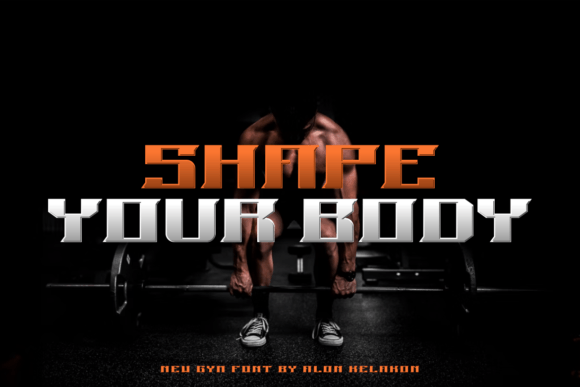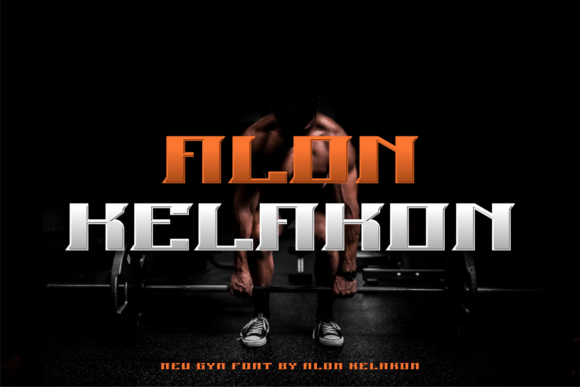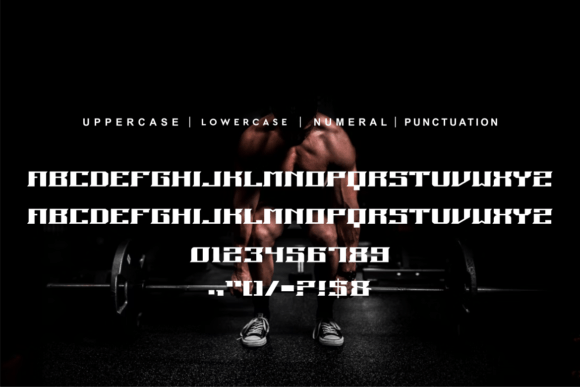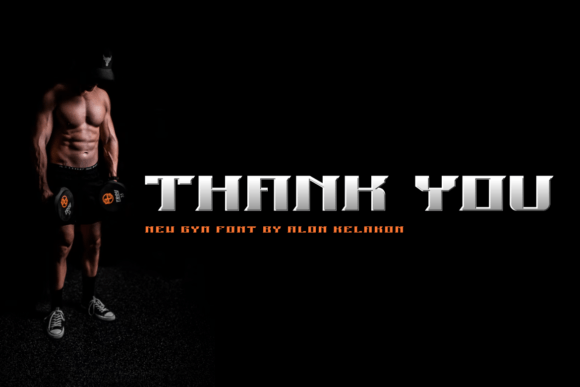
Enter the Gym Sports Font, a cool and modern display font designed to take your creative projects to the next level. This versatile font is perfect for anyone looking to add a touch of sophistication and style to their designs. With its clean lines and modern aesthetic, Gym Sports Font is a valuable addition to any designer’s toolkit.
Gym Sports Font Key Features
- Font Family: Gym Sports Font is a custom-designed sans-serif font.
- Character Count: The font includes a wide range of characters, including uppercase and lowercase letters, numbers, and punctuation marks.
- Unique Characteristics: The font features a bold and athletic design, making it perfect for sports-related applications, fitness studios, and gyms.
Gym Sports Font Review
- The font is highly customizable, allowing you to adjust the weight, size, and color to fit your design needs.
- The bold and condensed style makes it perfect for creating a dynamic and energetic feel, ideal for sports or fitness-related projects.
- The font is relatively easy to read, even at smaller sizes, which is a must for any font intended for digital use.
- The font may not be suitable for more formal or professional projects, as it can come across as too casual or playful.
- The limited number of styles and weights may limit your design options, especially when compared to more comprehensive font families.
- The font may not be optimized for certain languages or character sets, which could lead to display issues.
Gym Sports Font is a solid choice for projects that require a bold, energetic feel. While it may not be the most versatile font, it’s perfect for sports, fitness, or action-packed themes. With some careful planning and design, you can create an amazing visual experience with this font.
Gym Sports Font: A Practical Application Guide
Gym Sports Font is a modern and bold font that is perfect for creating eye-catching graphics and designs related to sports, fitness, and wellness.
3. Playfair Display Font
Playfair Display is a luxurious and elegant serif font that is perfect for creating a high-end and sophisticated design. It is ideal for use in branding, advertising, and packaging. Playfair Display is a great alternative to Gym Sports Font as it has a similar classic and timeless feel, but with a more refined and luxurious look.
Dancing Script is a beautiful and elegant script font that is perfect for creating a unique and eye-catching design. It is ideal for use in branding, advertising, and packaging. Dancing Script is a great alternative to Gym Sports Font as it has a similar relaxed and casual feel, but with a more dynamic and playful look.